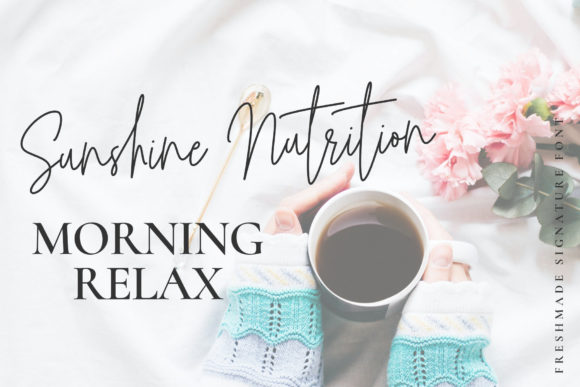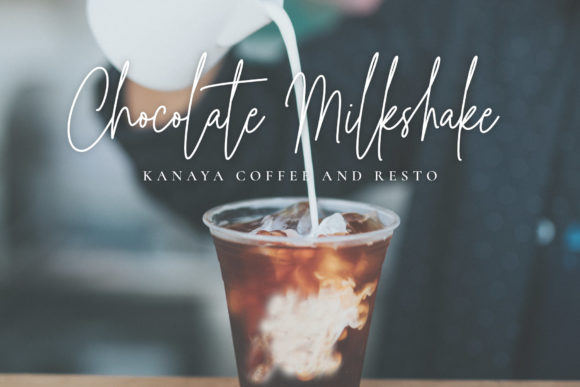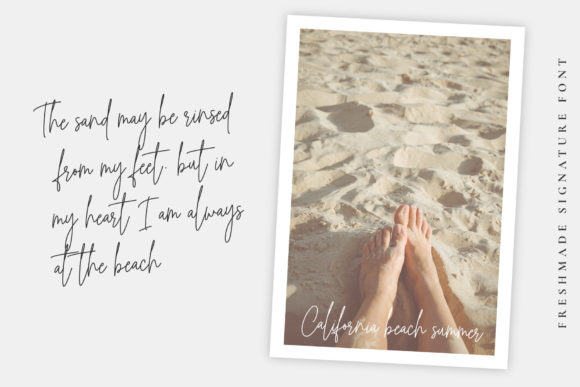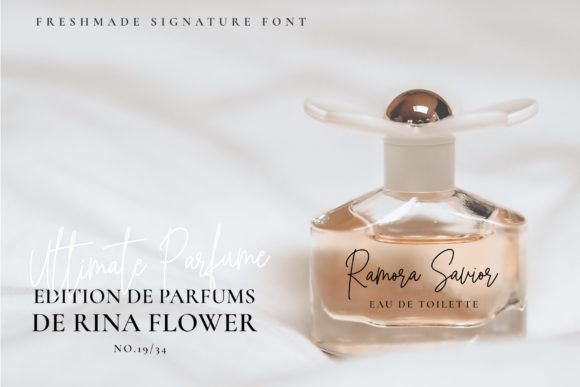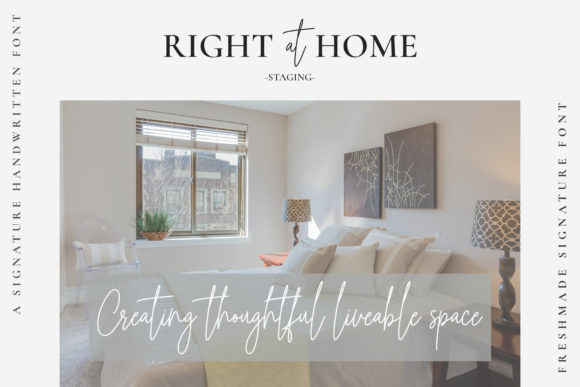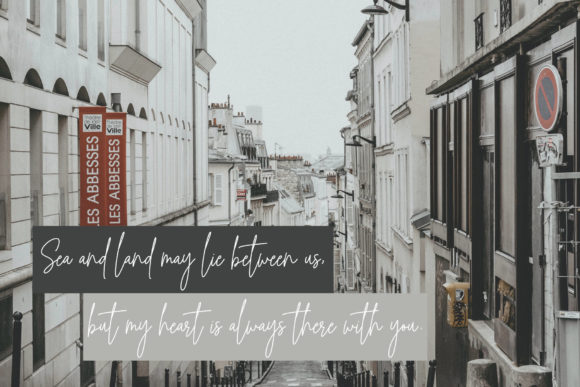
Introducing Freshmade Signature: The Ultimate Script Font for Creative Projects
Are you a designer or crafter looking for a font that can elevate your branding projects to the next level? Look no further than Freshmade Signature, a delicate and fashionable script font that’s perfect for a variety of applications. In this article, we’ll dive into the features and benefits of Freshmade Signature, and explore how it can be used to create stunning logos, t-shirt designs, and more.
A Delicate and Fashionable Script Font
Freshmade Signature is a beautifully crafted script font that’s designed to add a touch of elegance and sophistication to any design project. Its delicate lines and flowing curves make it perfect for creating logos, branding materials, and other visual elements that require a high level of refinement. Whether you’re working on a luxury brand or a creative product, Freshmade Signature is sure to impress.
Perfect for Branding Projects
So, what makes Freshmade Signature so well-suited for branding projects? For starters, its unique and stylish design makes it easy to stand out in a crowded market. Additionally, its versatility allows it to be used in a variety of contexts, from logos and business cards to t-shirt printing and product packaging. Whether you’re looking to create a cohesive brand identity or simply want to add a touch of personality to your designs, Freshmade Signature is an excellent choice.
Use Cases for Freshmade Signature
So, how can you use Freshmade Signature in your design projects? Here are a few ideas to get you started:
- Logos: Freshmade Signature is perfect for creating custom logos that are both stylish and memorable. Its delicate lines and flowing curves make it easy to recognize and remember.
- T-Shirt Printing: Add a touch of personality to your t-shirt designs with Freshmade Signature. Its fashionable design makes it perfect for creating eye-catching and stylish apparel.
- Creative Products: From handmade crafts to digital products, Freshmade Signature is a versatile font that can be used in a variety of creative projects. Its unique design makes it perfect for adding a touch of elegance and sophistication.
Benefits of Using Freshmade Signature
So, what are the benefits of using Freshmade Signature in your design projects? Here are a few:
- Unique Design: Freshmade Signature has a unique and stylish design that sets it apart from other script fonts.
- Versatility: Freshmade Signature can be used in a variety of contexts, from logos and branding materials to t-shirt printing and product packaging.
- Elegance and Sophistication: Freshmade Signature adds a touch of elegance and sophistication to any design project, making it perfect for luxury brands and creative products.
Tips for Using Freshmade Signature
Here are a few tips for getting the most out of Freshmade Signature:
- Experiment with Different Sizes: Freshmade Signature looks great in a variety of sizes, from small and delicate to large and bold.
- Pair with Other Fonts: Freshmade Signature pairs well with a variety of other fonts, making it easy to create visually appealing and interesting designs.
- Use in Combination with Images: Freshmade Signature looks great when used in combination with images, making it perfect for creating eye-catching and stylish designs.
| Font Name | Freshmade Signature Font |
| Author | Picky Labs |
In conclusion, Freshmade Signature is a delicate and fashionable script font that’s perfect for a variety of design projects. Its unique design, versatility, and elegance make it an excellent choice for designers and crafters looking to add a touch of sophistication to their work. Whether you’re creating logos, t-shirt designs, or creative products, Freshmade Signature is sure to impress.